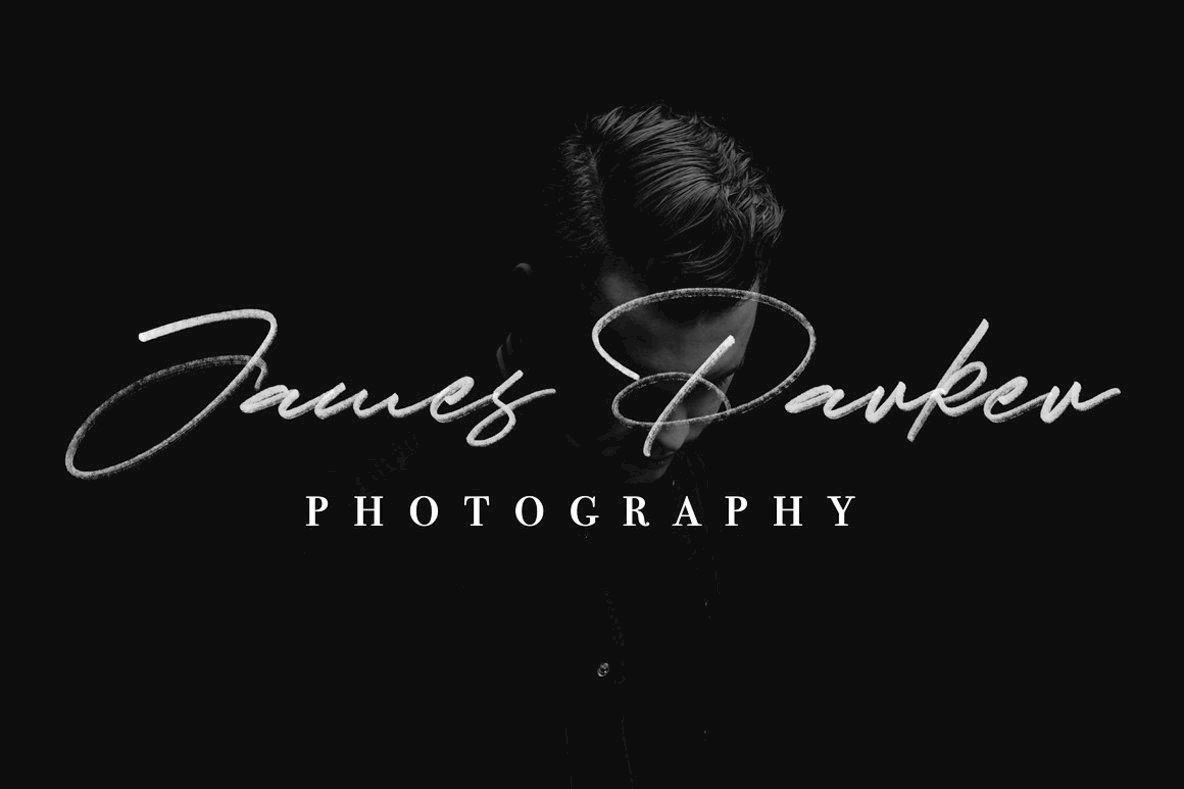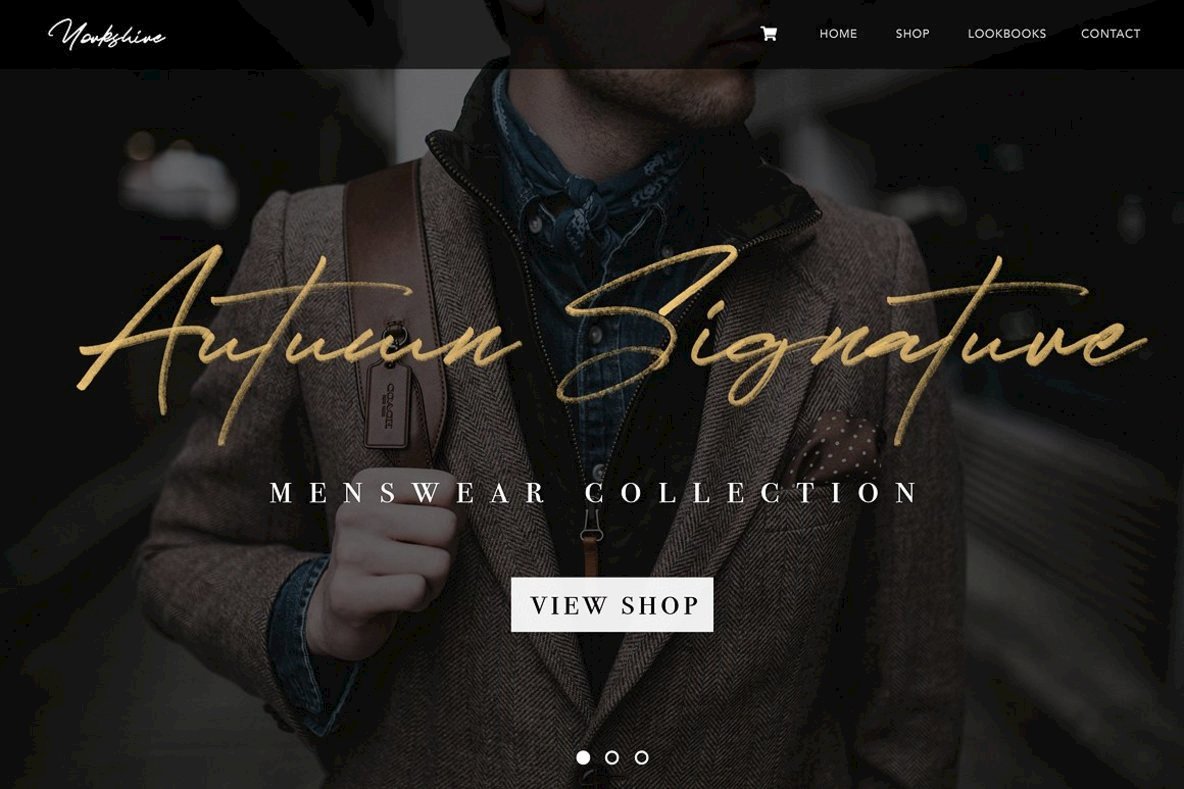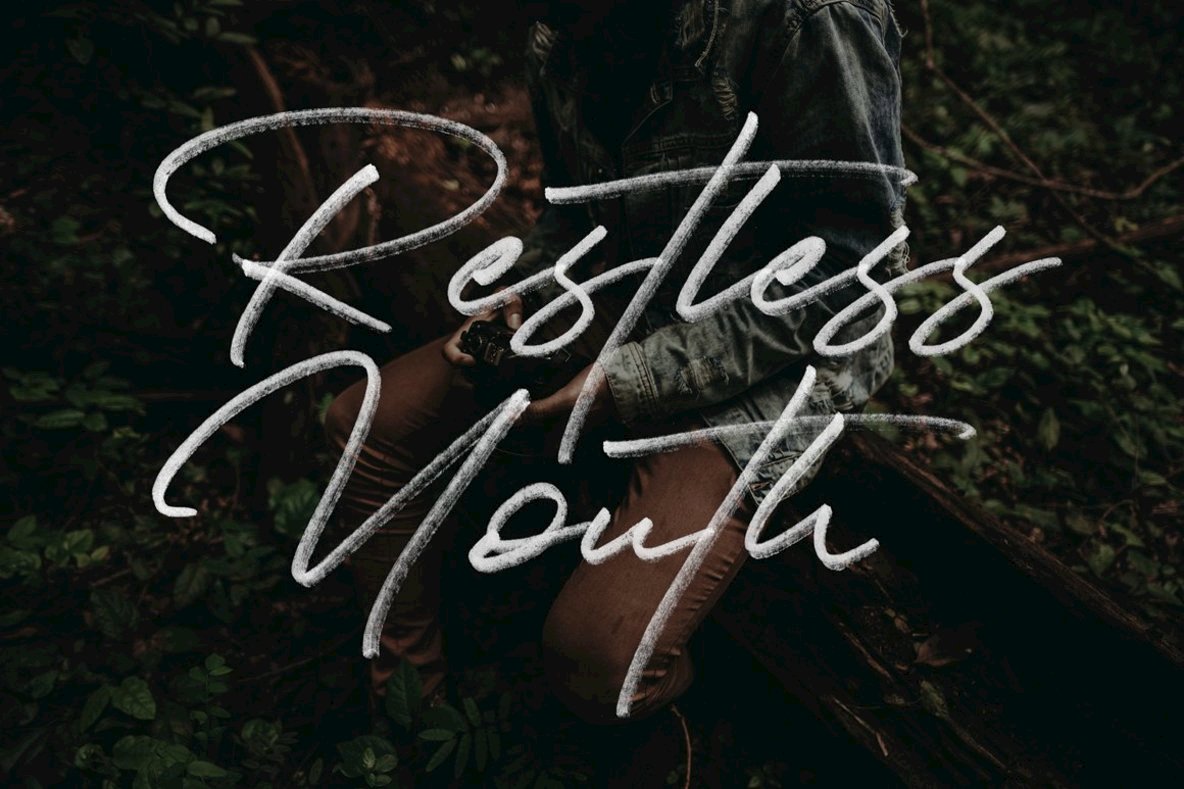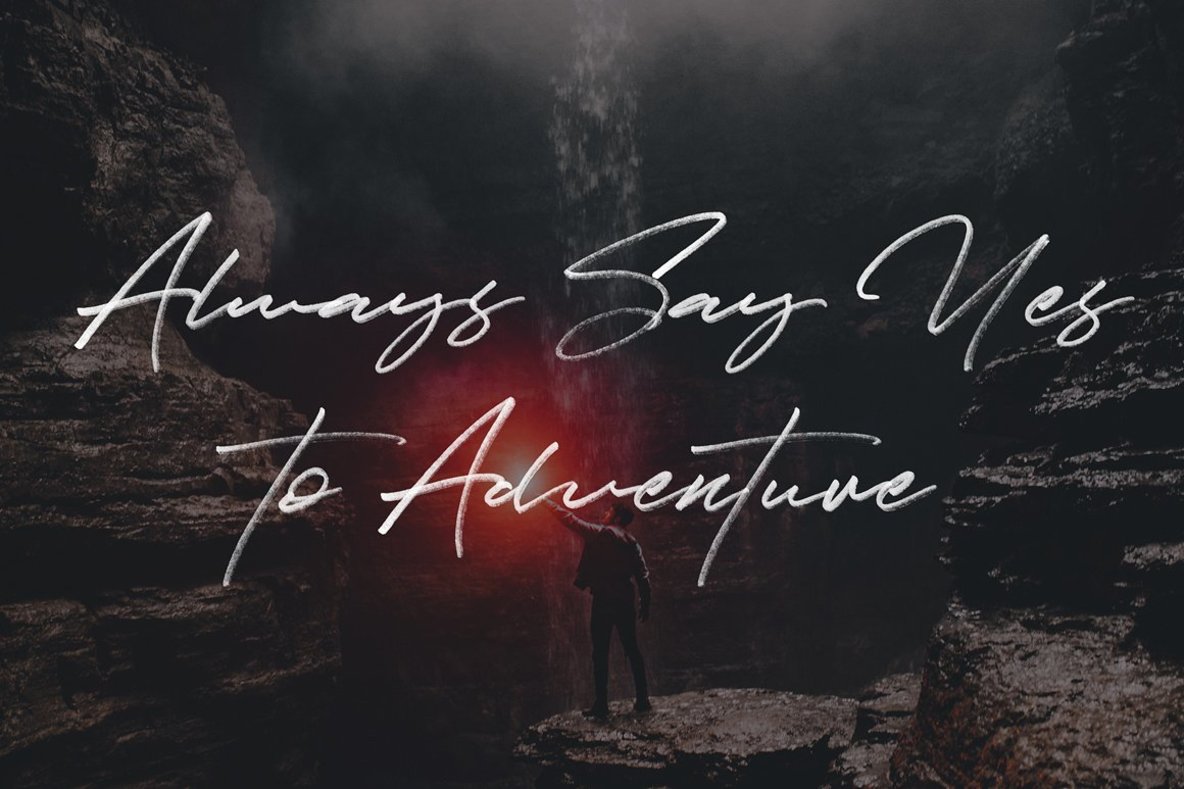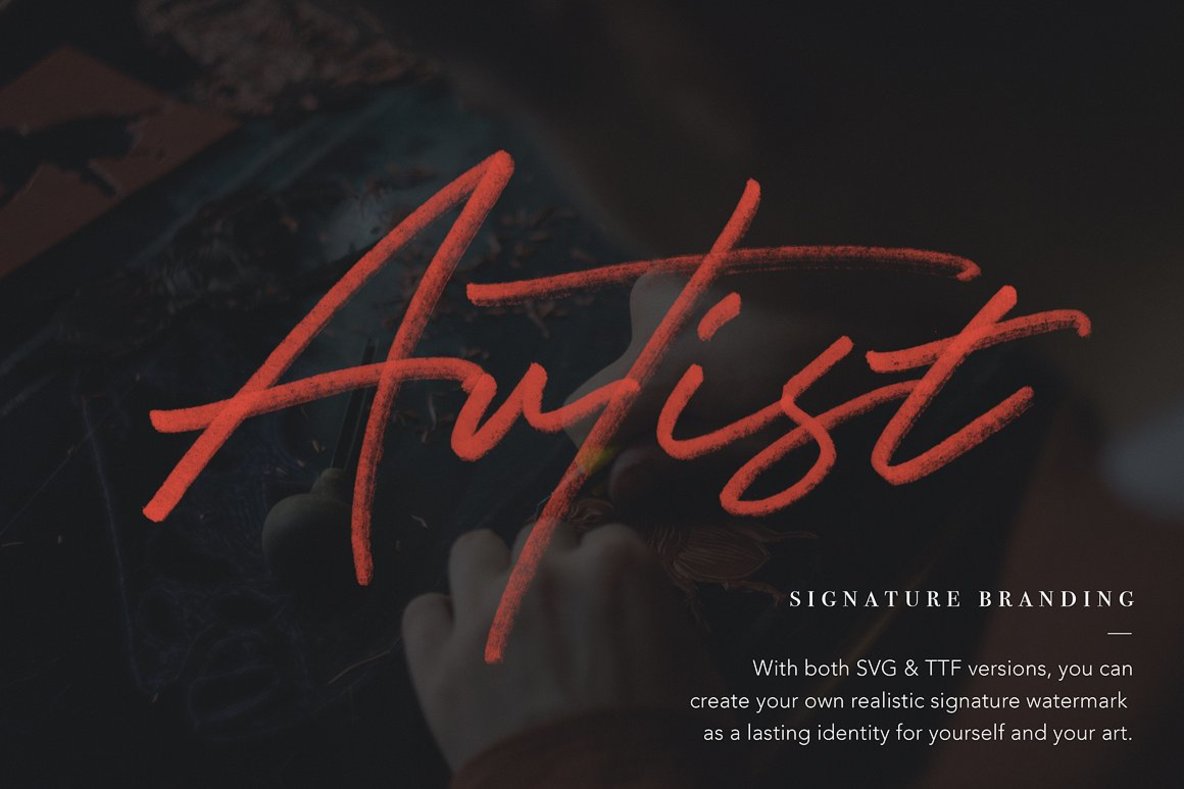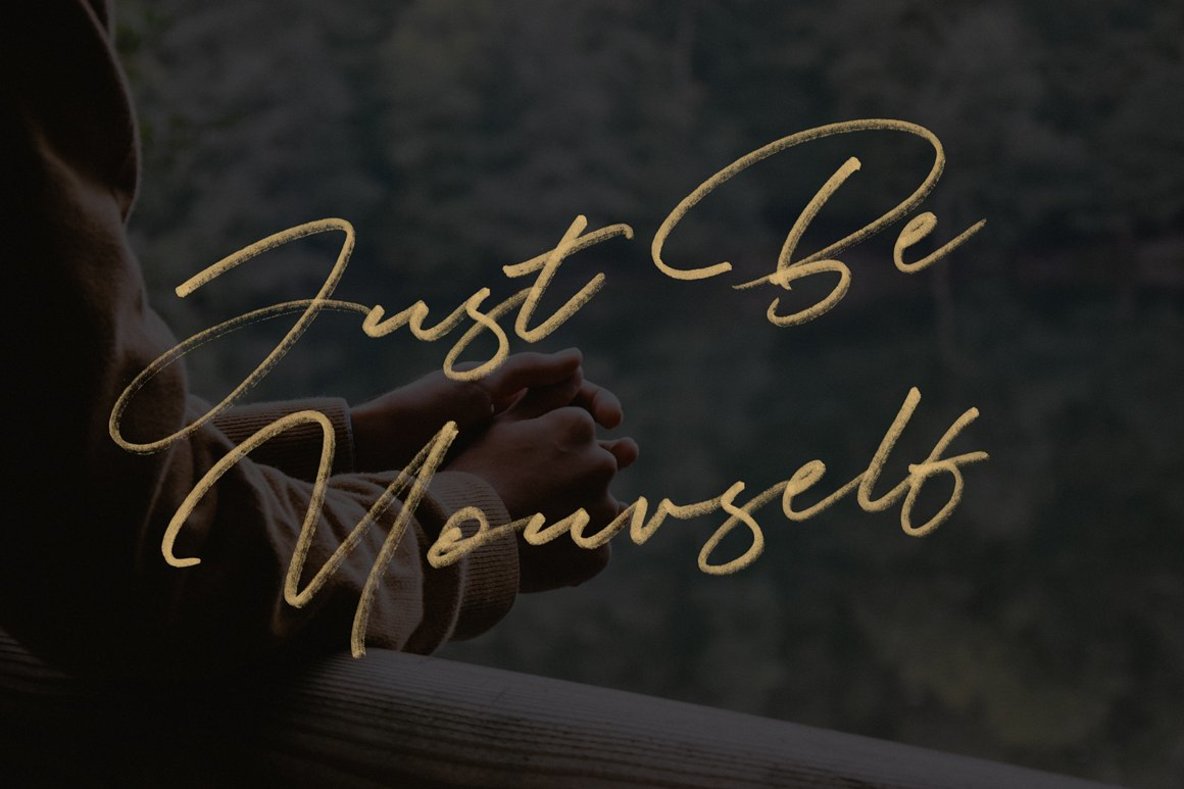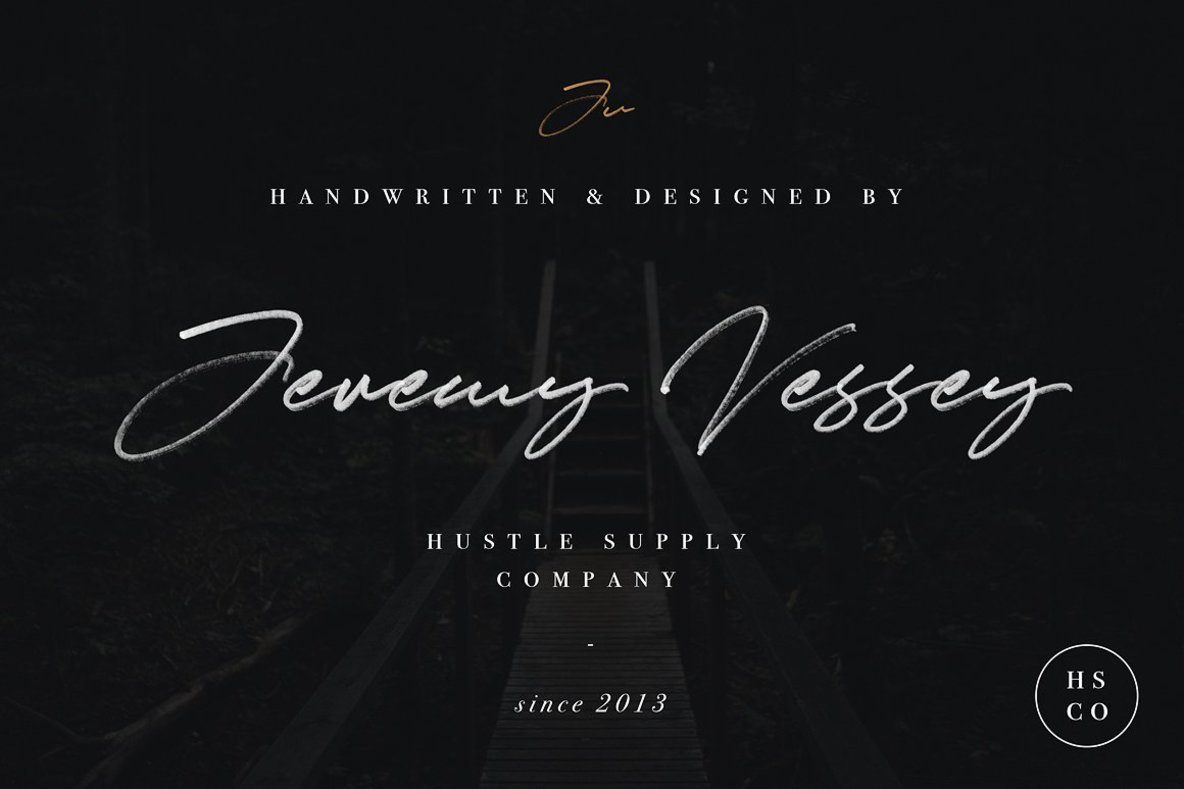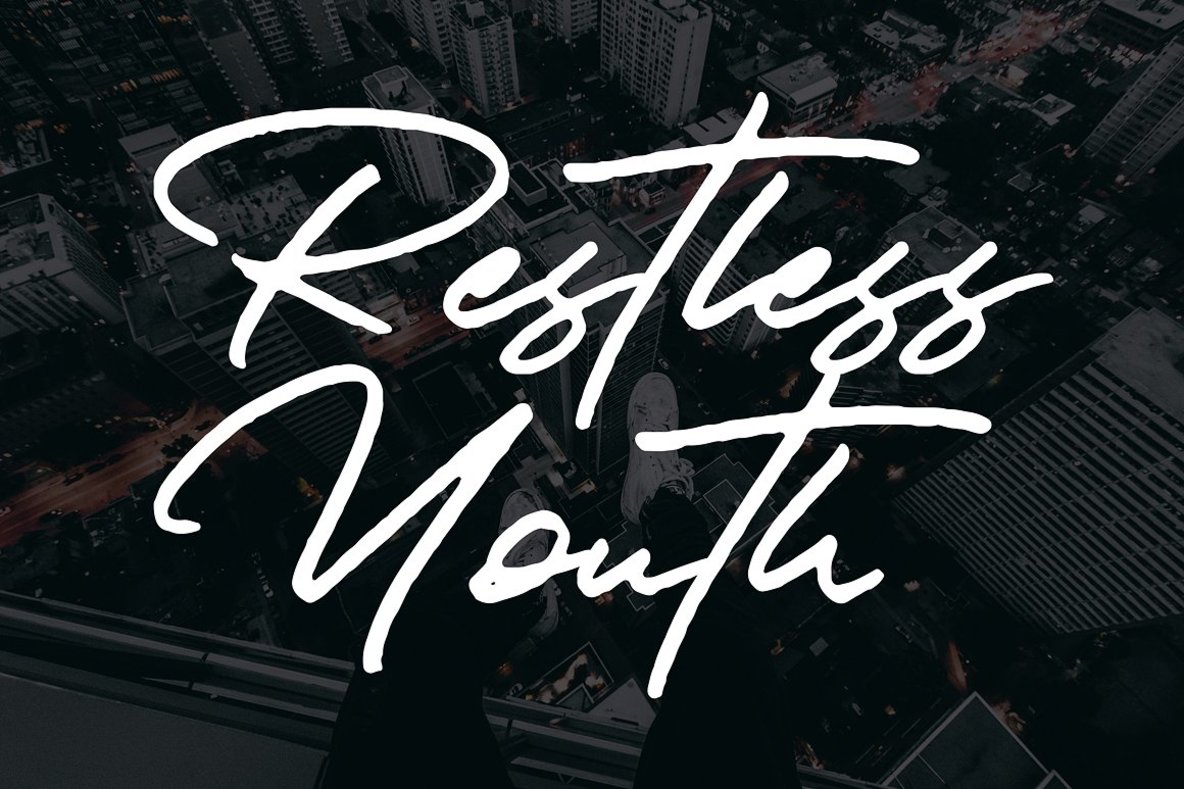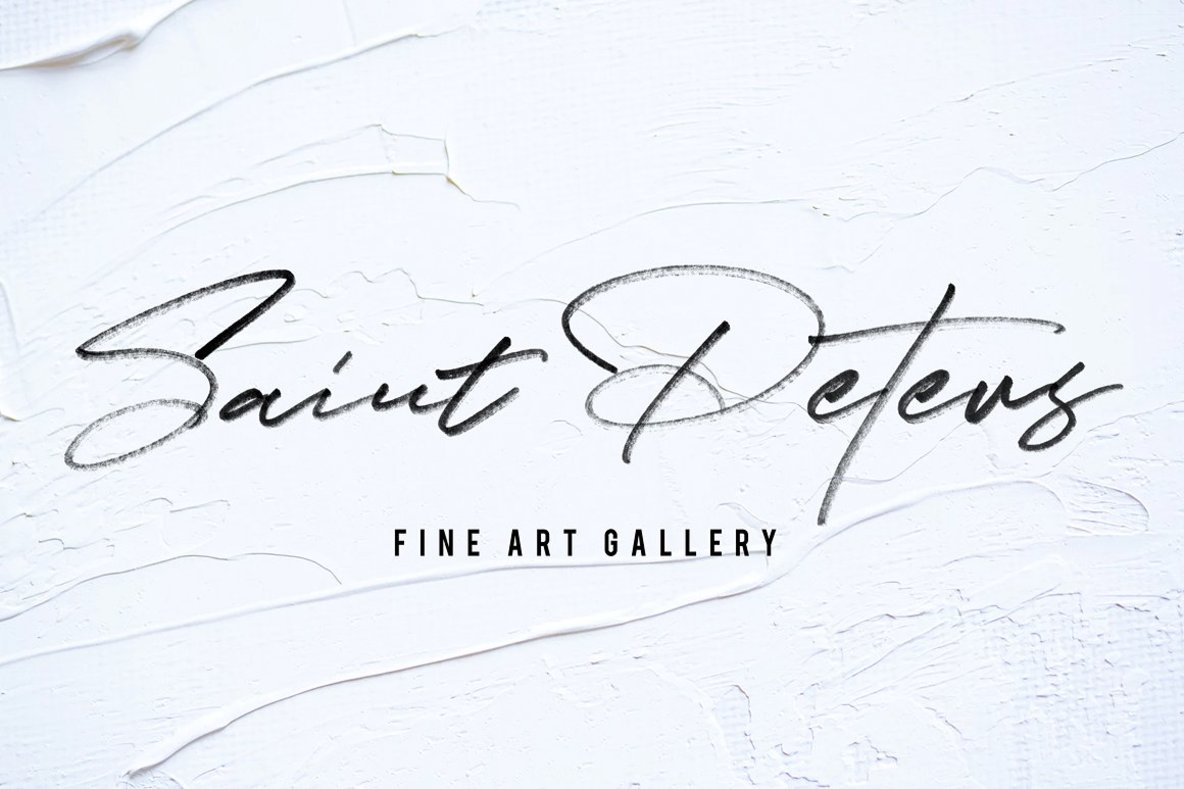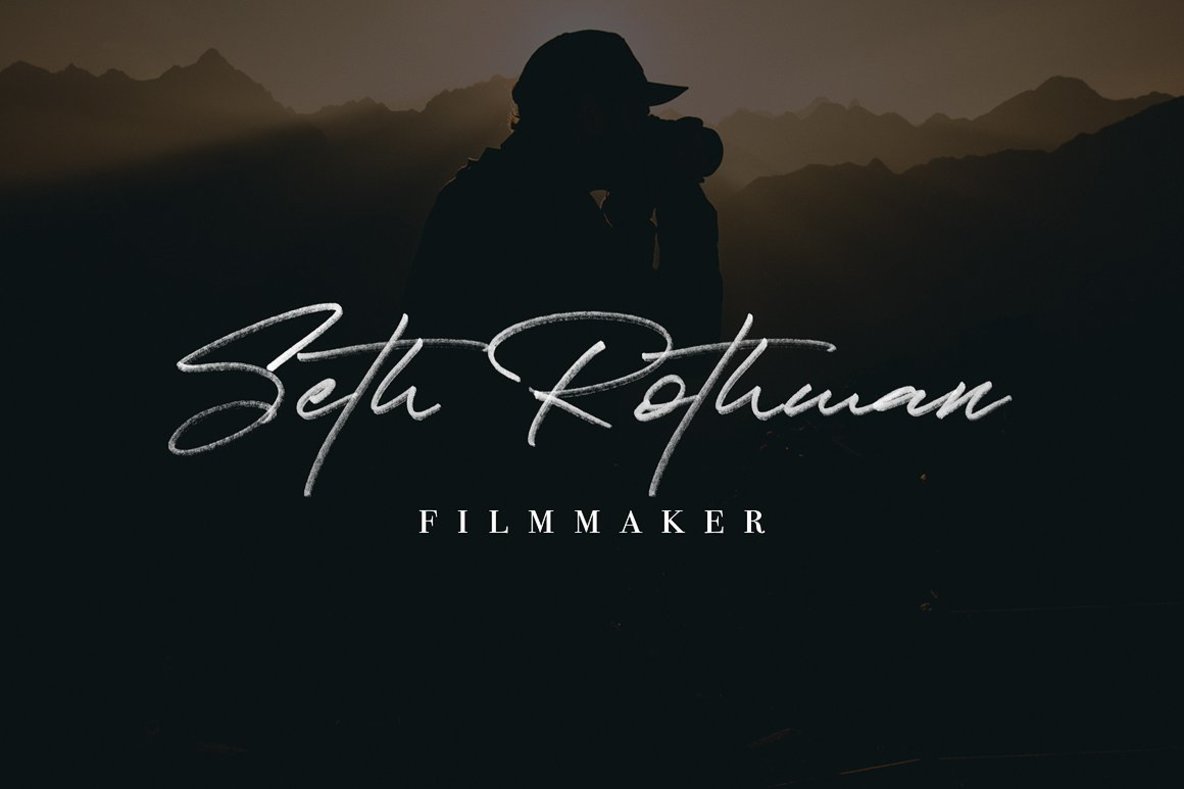
JV Signature (SVG Font)
JV Signature OpenType SVG Typeface
I'm very excited to introduce my first OpenType SVG typeface. This signature typeface is incredibly realistic & allows customers to instantaneously create a signature for themselves or for their clients. The transparency made possible by the OpenType SVG format allows for hyper-realism & with a complete Alternate set of characters you have even more options to create something that doesn't look "typed" and instead, drawn.
This font isn't just for signatures though. It will be used in many settings ranging from Magazines, Book Covers, Youtube Intros, Advertising, Flyers, Apparel, Wedding Invitations, Etc.